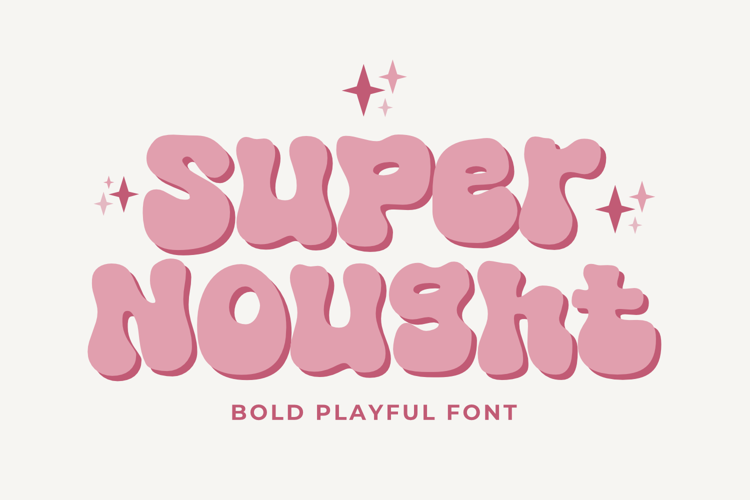
Super Nought Font
About Super Nought Font
Super Nought is a bold, playful font that is perfect for headlines, logos, and other creative projects. It is a versatile font that can be used for a variety of purposes, from serious to fun.